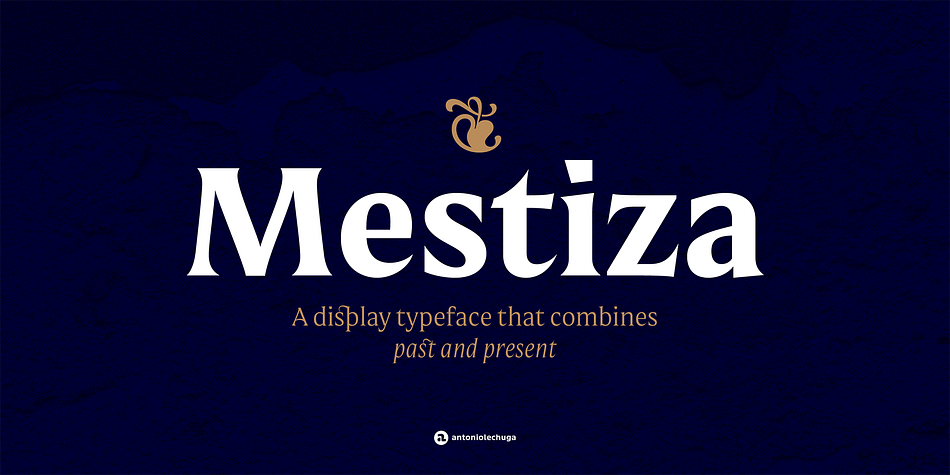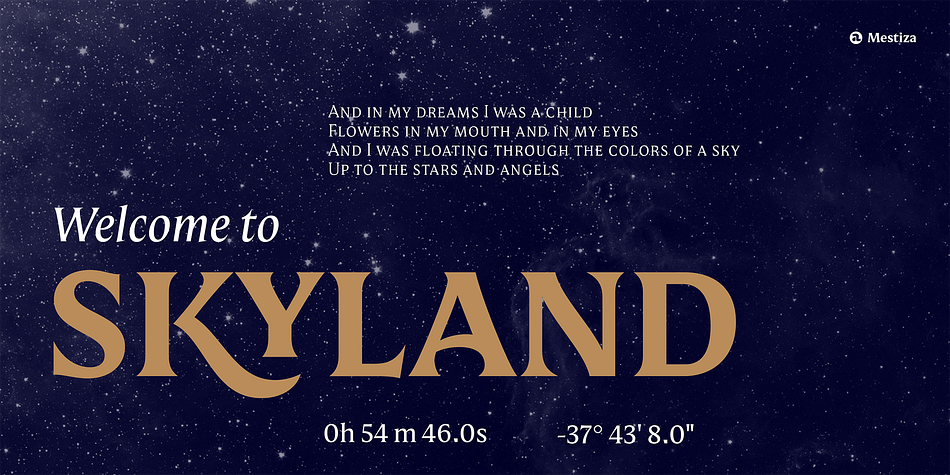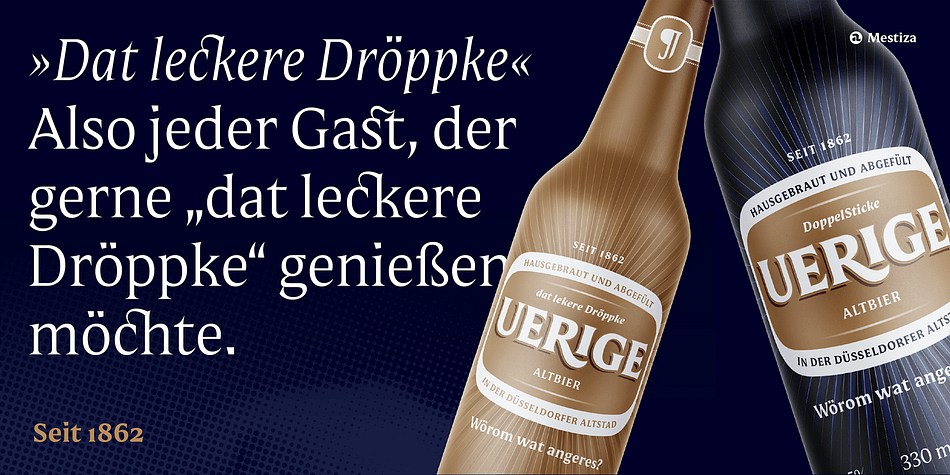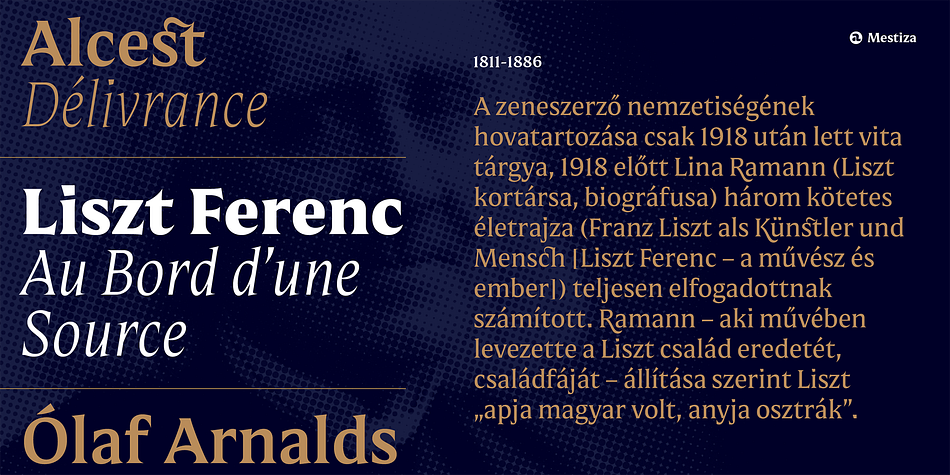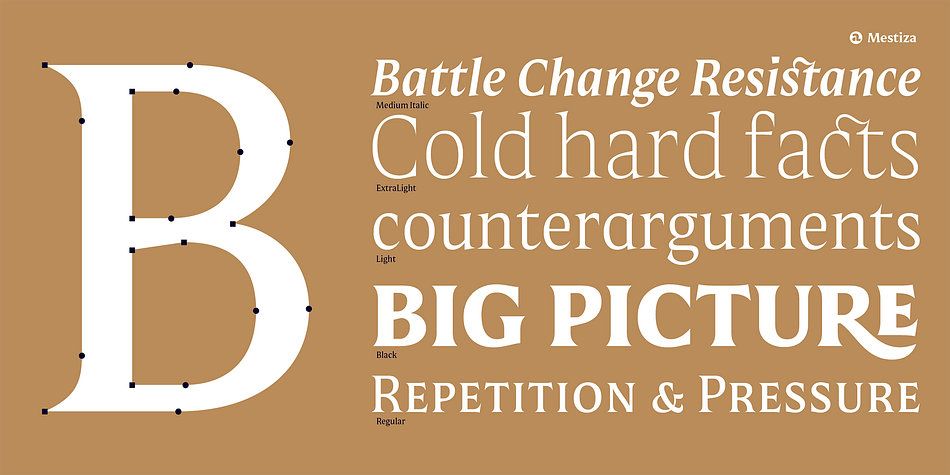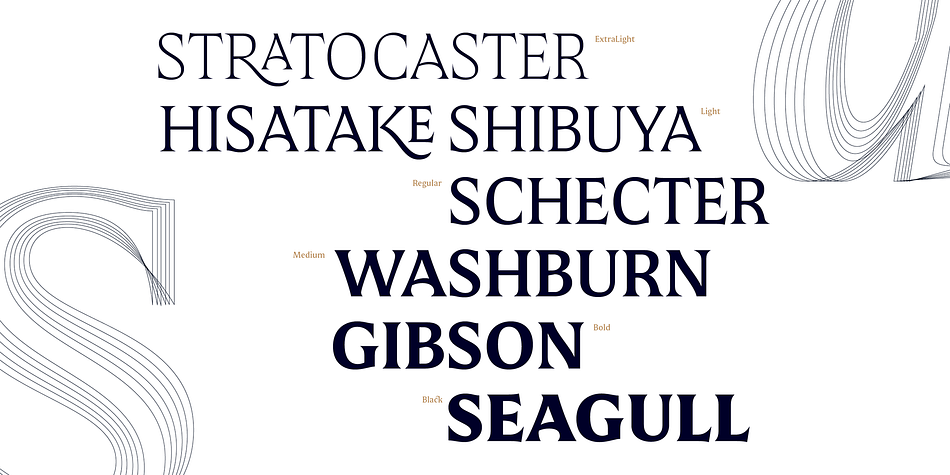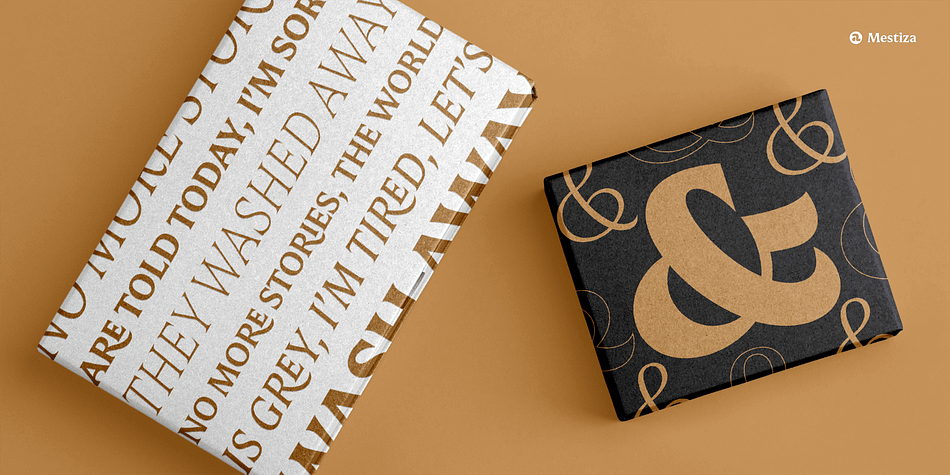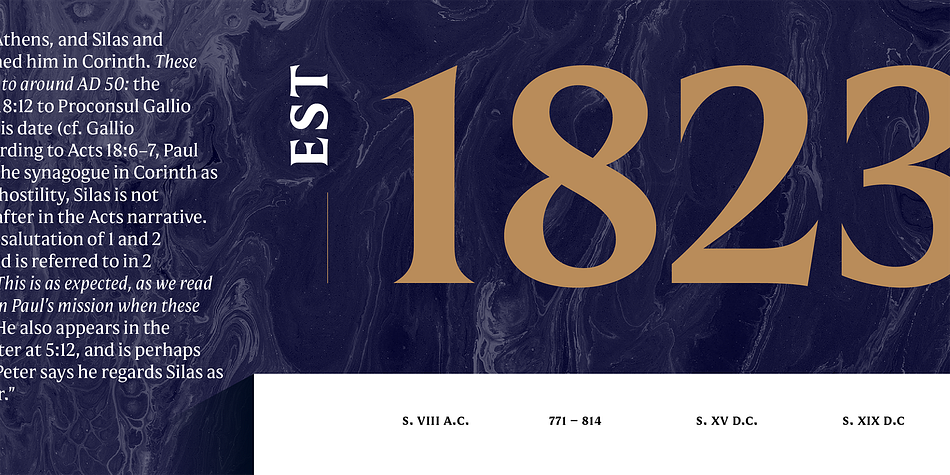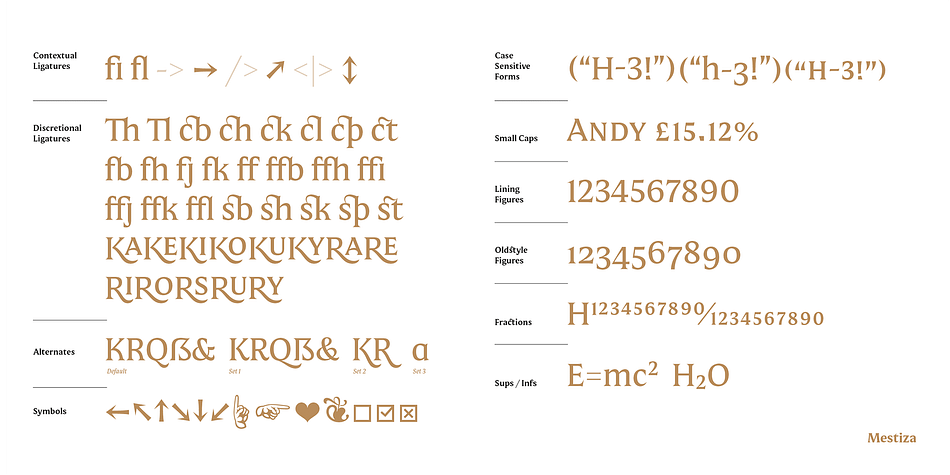
Mestiza
Designed by Antonio Mejía Lechuga, Mestiza is a serif font family. This typeface has twelve styles and was published by Antonio Lechuga.
Mestiza is a type family with a living past, which combines its ancient roots bringing the handmade to the contemporary in a spirited mix that evokes elegance and strength.
Thanks to its sharp terminals and high contrast, Mestiza acquires a unique personality. It is ideal for headlines and branding projects and allows it to be set in 219 languages ​​of the Latin alphabet, thanks to the more than 700 characters set.
Mestiza has 12 variants, six Roman plus Italics including Small Caps, Old-Style numbers, Superiors, Inferiors, Contextual and Discretionary ligatures, Symbols, and some Alternates.
Designer Antonio Mejía Lechuga